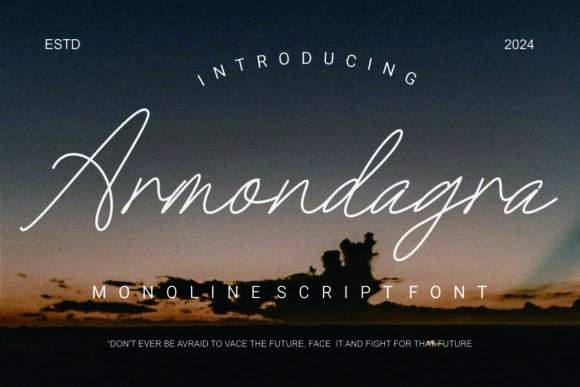
The Magical World of Armondagra Font
I’ll never forget the moment I stumbled upon Armondagra Font while working on a DIY project for a client’s wedding invitation. I had been searching for the perfect script font for hours, trying out different styles, but nothing seemed to fit the elegant and whimsical vibe I was going for. That was until I saw Armondagra – its flowing lines and magical touch instantly captivated me. I knew right then and there that it was the one.
An Honest Review of Armondagra Font
• 💫 Elegant and whimsical design that’s perfect for creative projects
• ✅ Highly versatile and adaptable to different design styles
• 🔍 Extensive range of OpenType features, glyphs, and stylistic alternates
• 📸 Beautifully crafted to add a touch of sophistication to any design
While Armondagra Font is an amazing addition to any design project, there are a few things to keep in mind. For instance, some users have reported issues with kerning 🤔, which can be easily adjusted in certain design software. Additionally, the font may not be suitable for very small text sizes ⚠️, as it can lose some of its elegance and clarity.
The Story Behind Armondagra Font
Armondagra Font was created with the intention of bringing a touch of magic to the world of typography. Its designer, inspired by the elegance of calligraphy and the whimsy of fantasy, crafted a font that’s both beautiful and versatile. The result is a font that’s perfect for creative projects, from DIY crafts to professional designs.
Q: What is Armondagra Font?
Armondagra Font is a magical script font designed to add a touch of elegance and whimsy to creative projects.
Q: Can I use Armondagra Font for my wedding invitations?
Absolutely! Armondagra Font is a popular choice for wedding invitations and other formal events due to its elegant and sophisticated design.